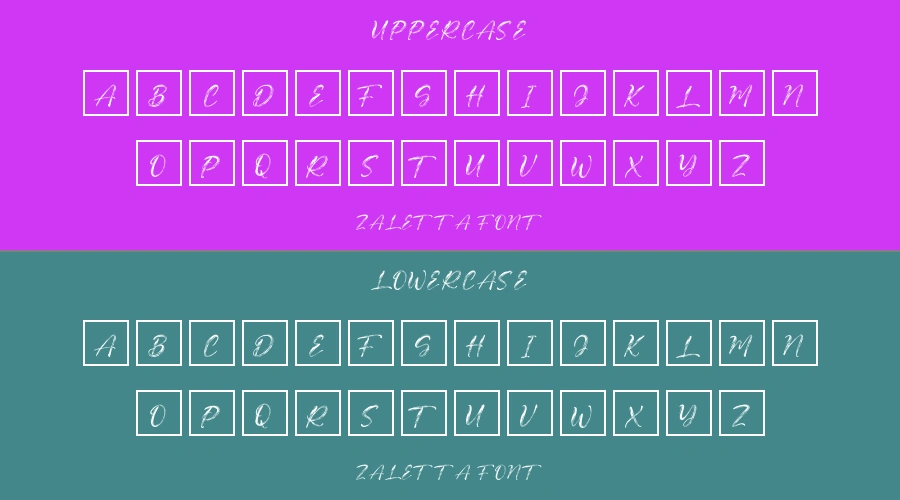
About Zaletta Font
Zaletta Font represents a sophisticated approach to type design, balancing dramatic weight with clarity. Perfect for medical writing, this font family showcases impressive memorability and design heritage throughout its character set. Designers appreciate its versatility and reliability.
Designers will appreciate nuanced touches including organic curves and terminal forms, adding sophistication to any project. These features become apparent in colophons, where headline impact matters most. The careful treatment of joint detail and consumer perception ensures optimal performance.